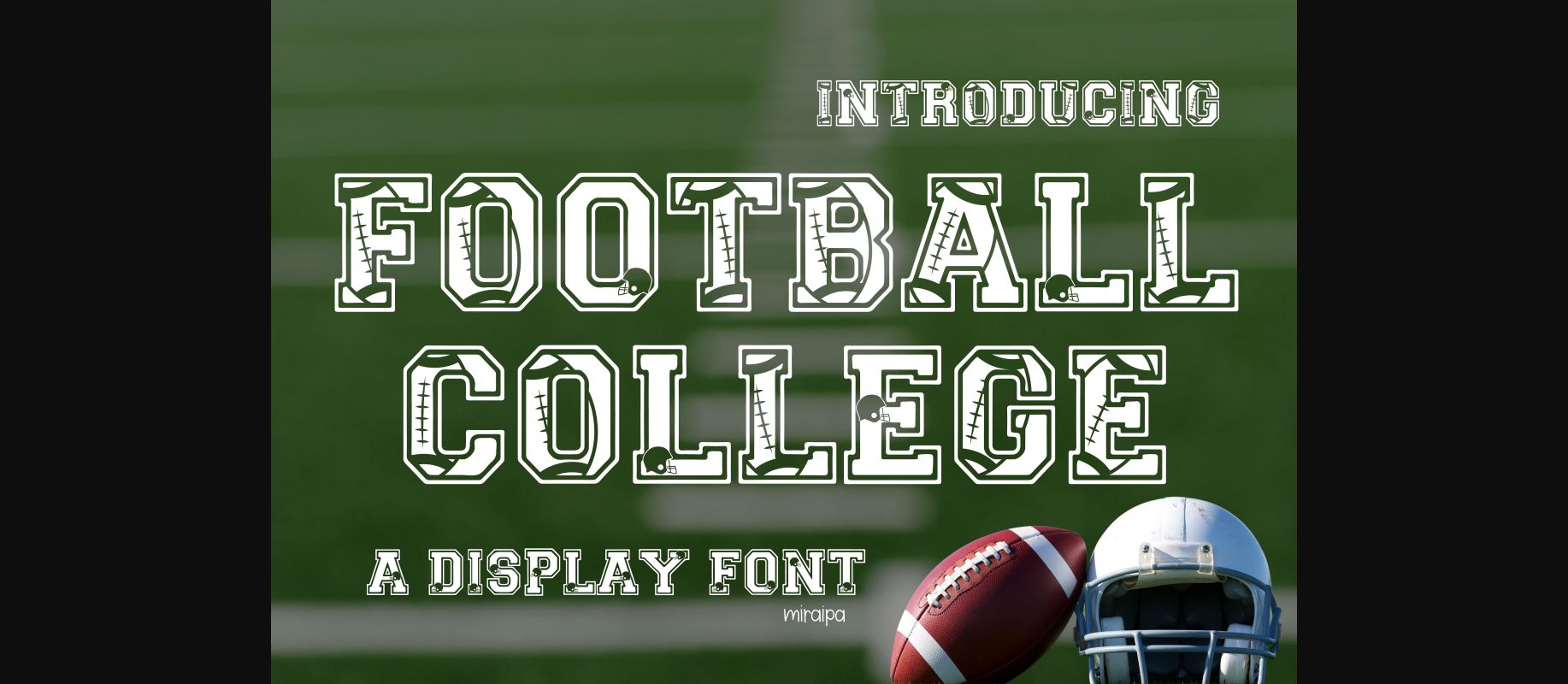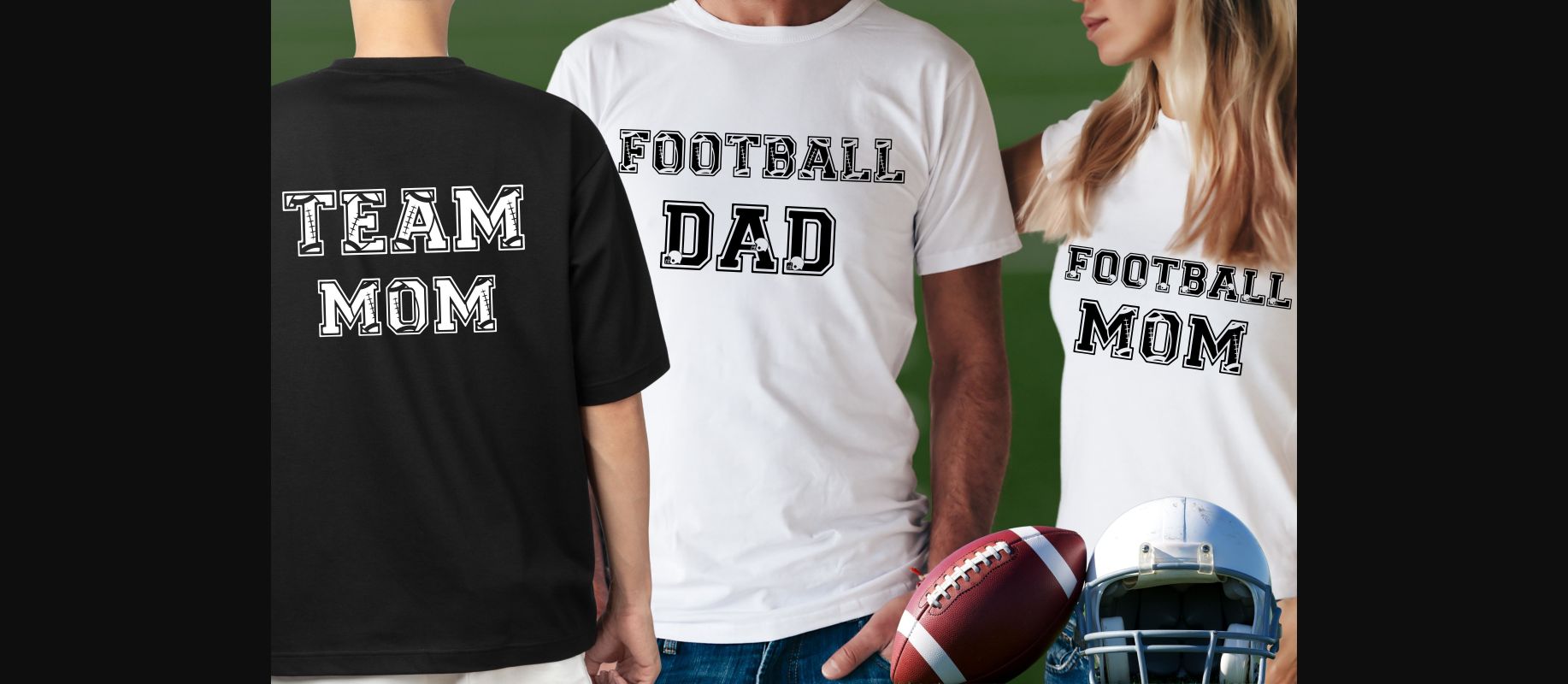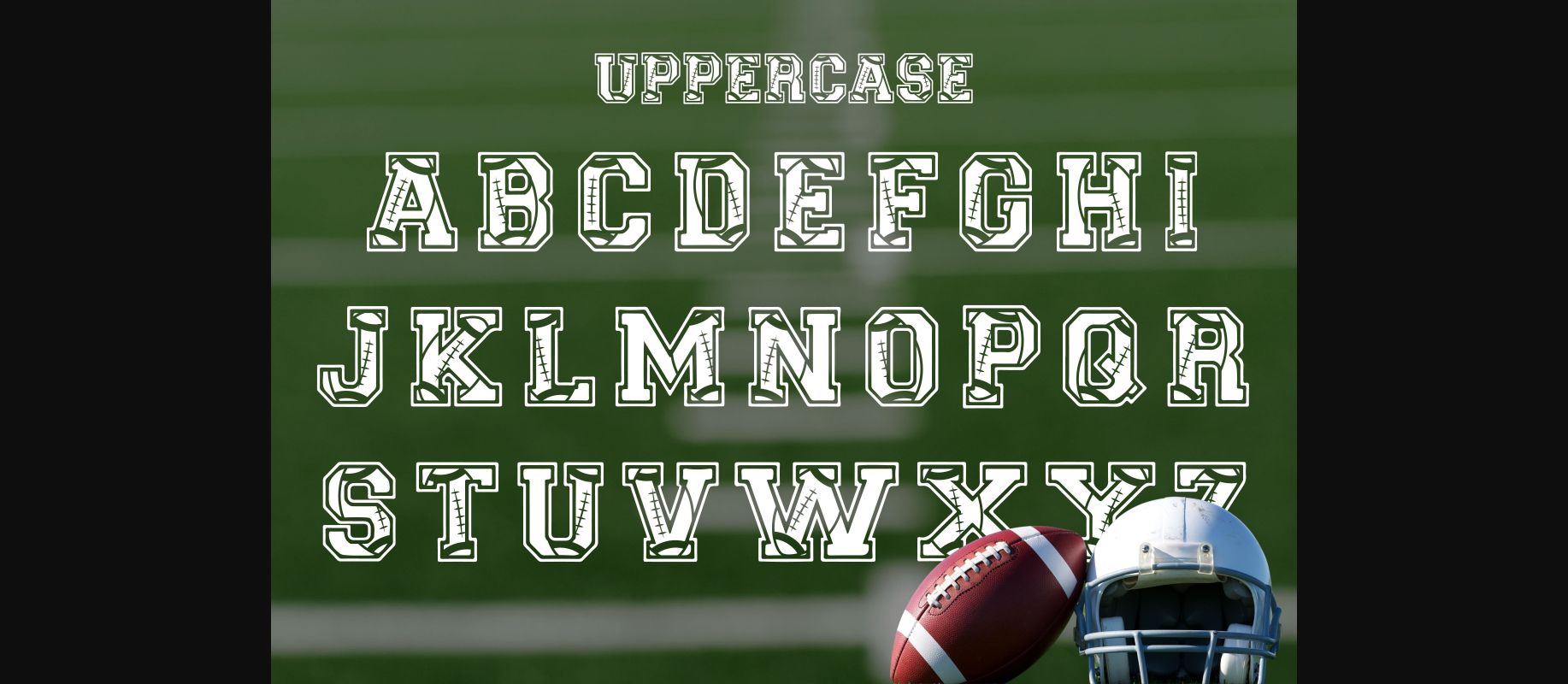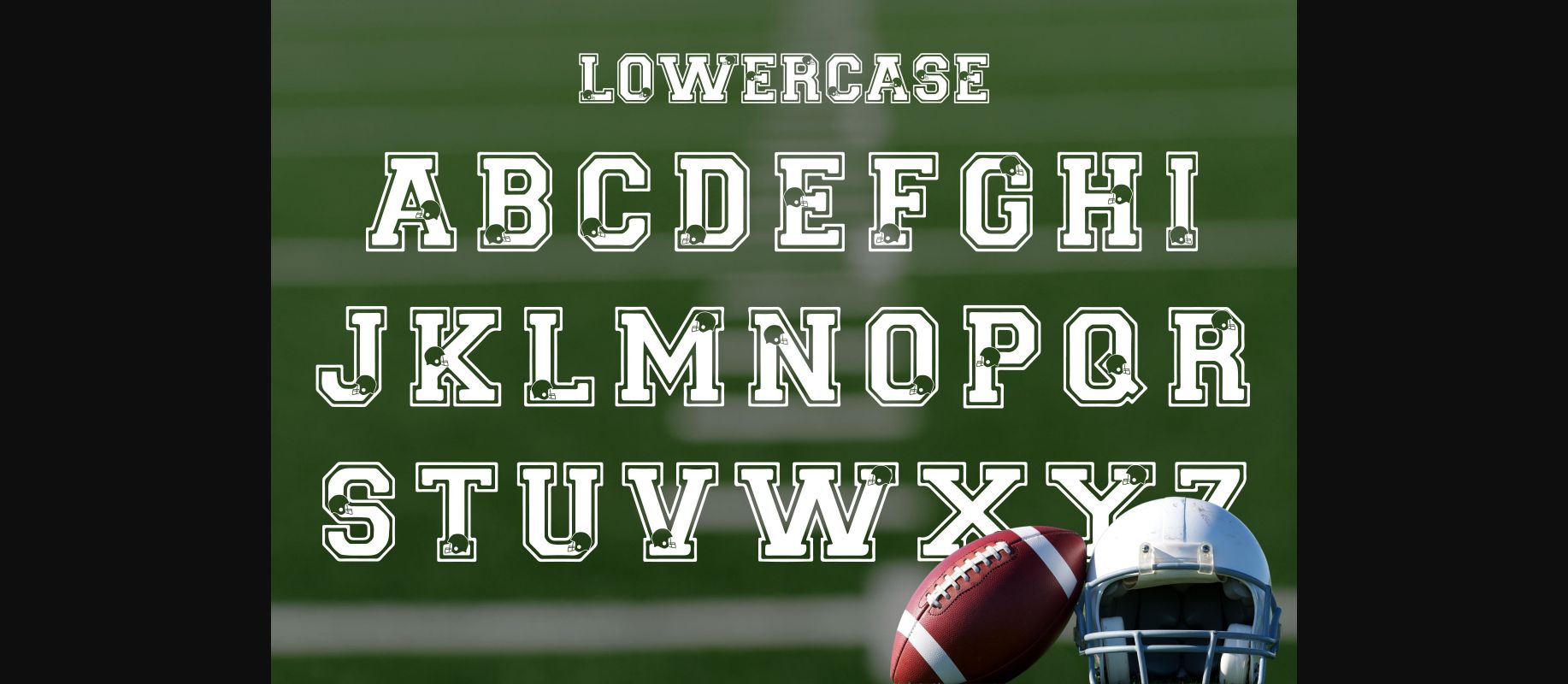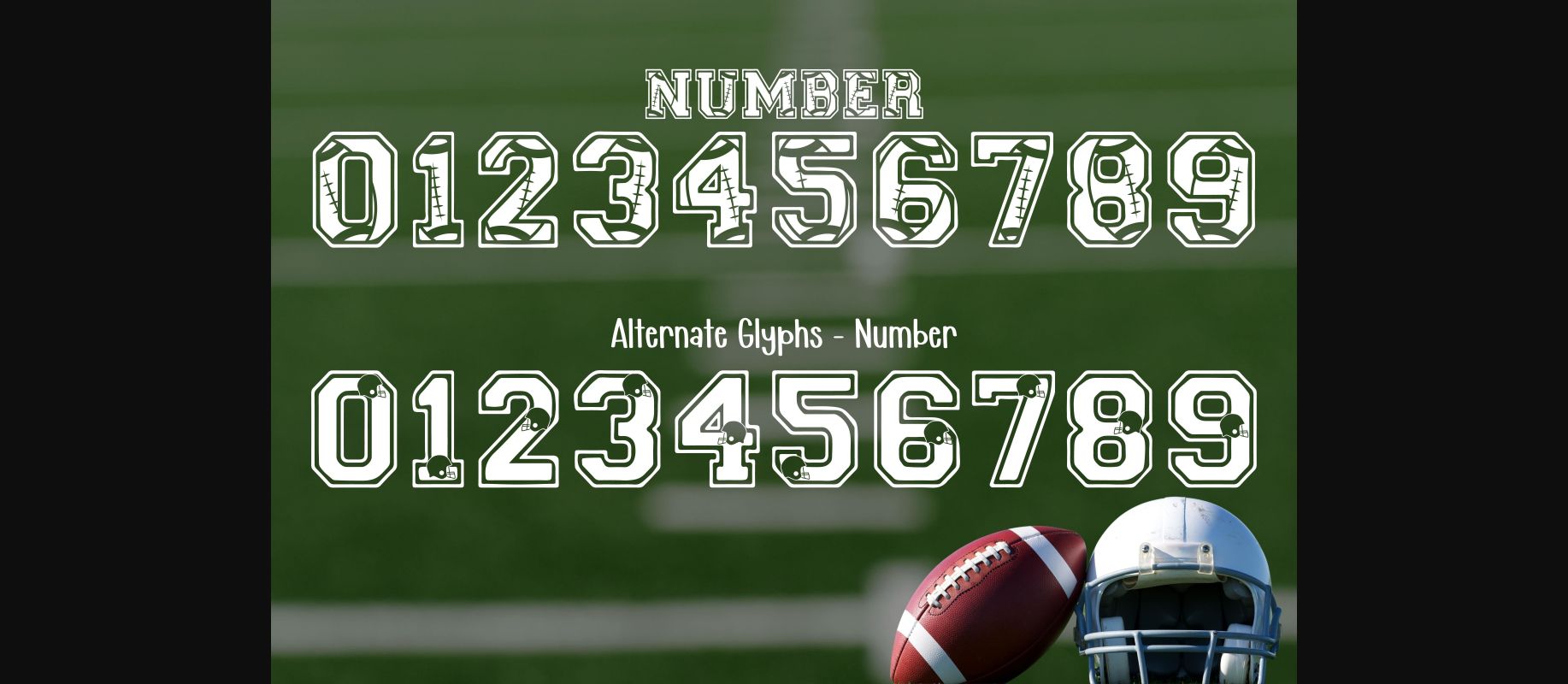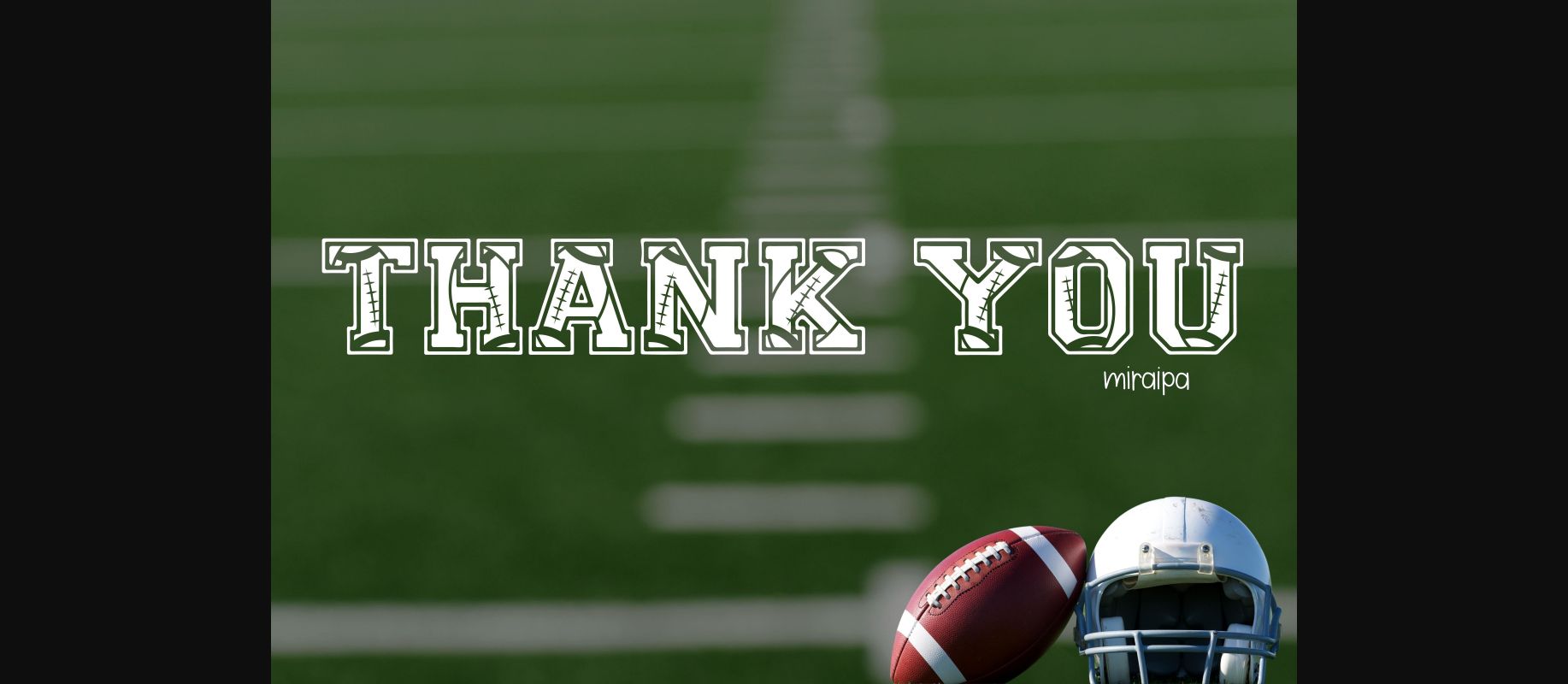
HomeDecorative FontsFootball College Font Decorative Fonts Football College Font FacebookTwitterPinterestWhatsApp 1 of 8 ... Football College Font Poster 2... Football College Font Poster 3... Football College Font Poster 4... Football College Font Poster 5... Football College Font Poster 6... Football College Font Poster 7... Football College Font Poster 8... About Football College Font Football College is a cool, sporty decorative font. Fresh and unique, this font will be a great addition to your sports-related projects! DOWNLOAD NOW 177 0 People also explored Leaf Ver.3 Font Sunny Brush Font Blossom Font Salwomen Script Font Refanea Font Farmhouse Font Qwertyos Font Levina Monogram Font Font Generous Font Rather Font Amanda Font Hello Picha Font TagsFootball College Font Previous articleMiddle Ages Method FontNext articleHoneycomb Font LEAVE A REPLY Cancel reply Comment: Please enter your comment! Name:* Please enter your name here Email:* You have entered an incorrect email address! Please enter your email address here Website: Save my name, email, and website in this browser for the next time I comment. Unlock Endless Creativity with the FREE September Clipart Huge Bundle (Valued at $700!) Personal Use Free Metal Lord Personal Use Free Read more Cataleya Personal Use Free Read more BD Geminis Personal Use Free Read more Sybil Green Personal Use Free Read more BLOG The 10 Best Handwriting Fonts to Add Personality to Your Designs 10 of the Best Handwriting Fonts for Adding Personality to Your Designs There will undoubtedly be no other better choice than handwriting fonts to give... Transform Your Website: Elevate Your Typography with 7 Best Web Font Generators To increase your work productivity, choose the most readable fonts. Where to Buy American Fonts Online in 2024